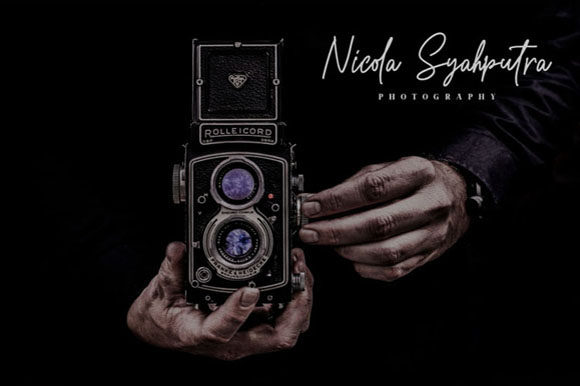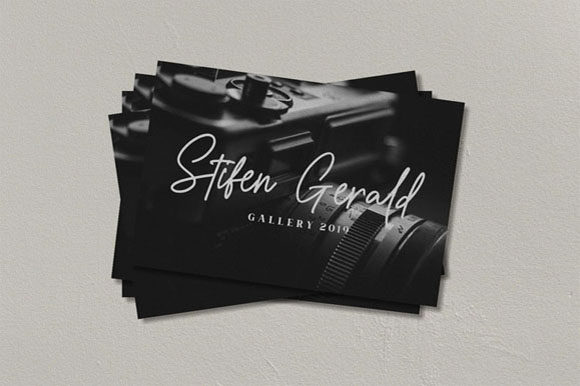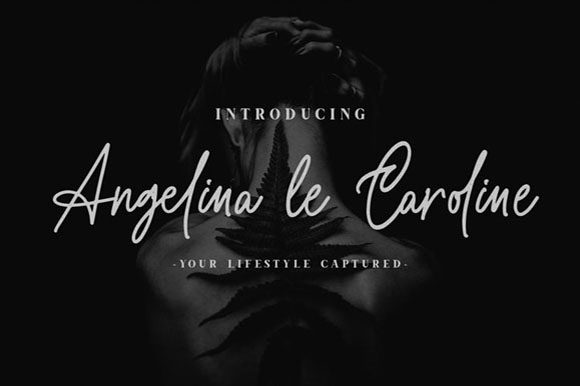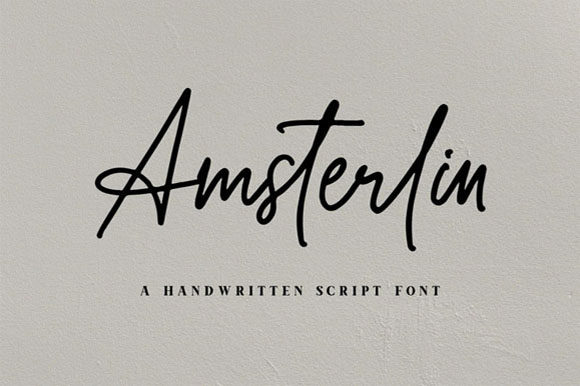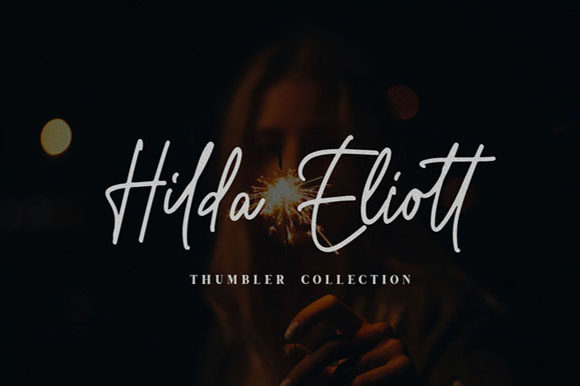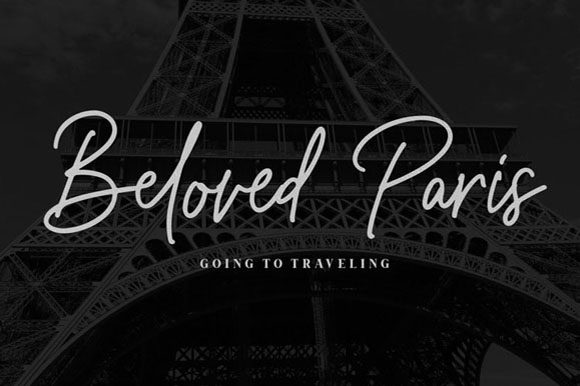
Amsterlin Font
About Amsterlin Font
Amsterlin feels light and charming and will add a personal touch to any design. Ignite your creativity with this stunning script!